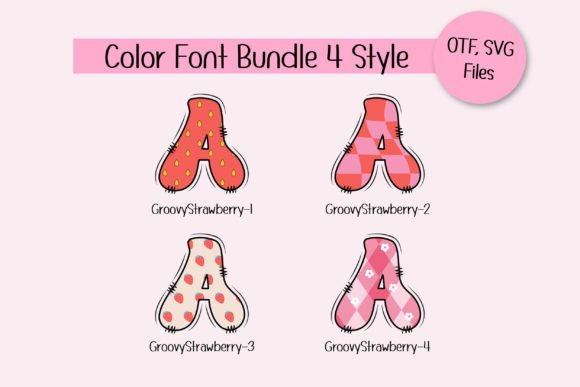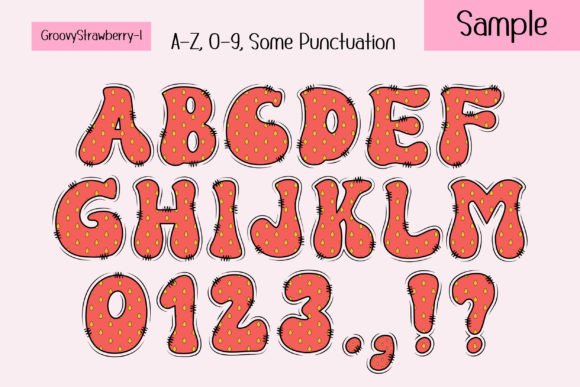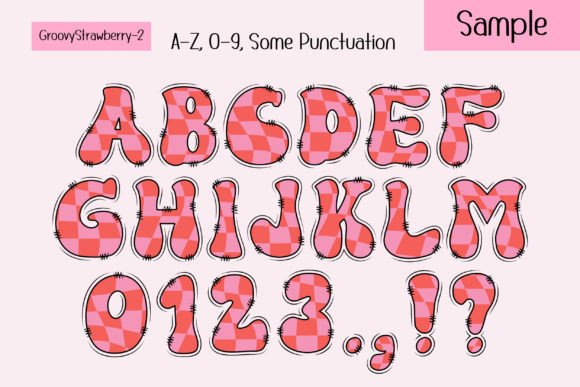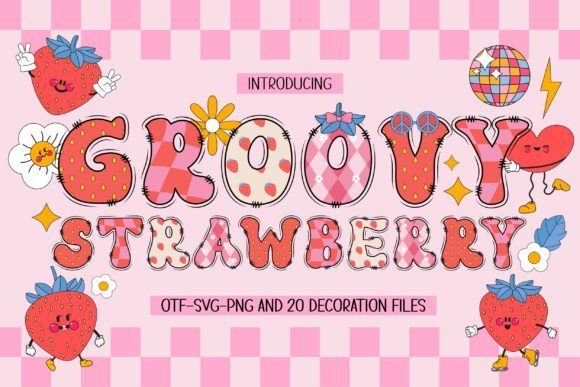
Introduction to Groovy Strawberry Font
Introducing “Groovy Strawberry” a delightful font inspired by the adorable shape of strawberries and infused with the chicness of Groovy style.
This font set includes 4 unique font styles along with 20 bonus matching clip art pieces, allowing you to add a touch of sweetness to your creative projects Whether you’re working on custom DIY craft projects, personalizing names, designing posters, or exploring various other creative endeavors, “Groovy Strawberry” is the perfect choice to infuse your designs with charm and playfulness.